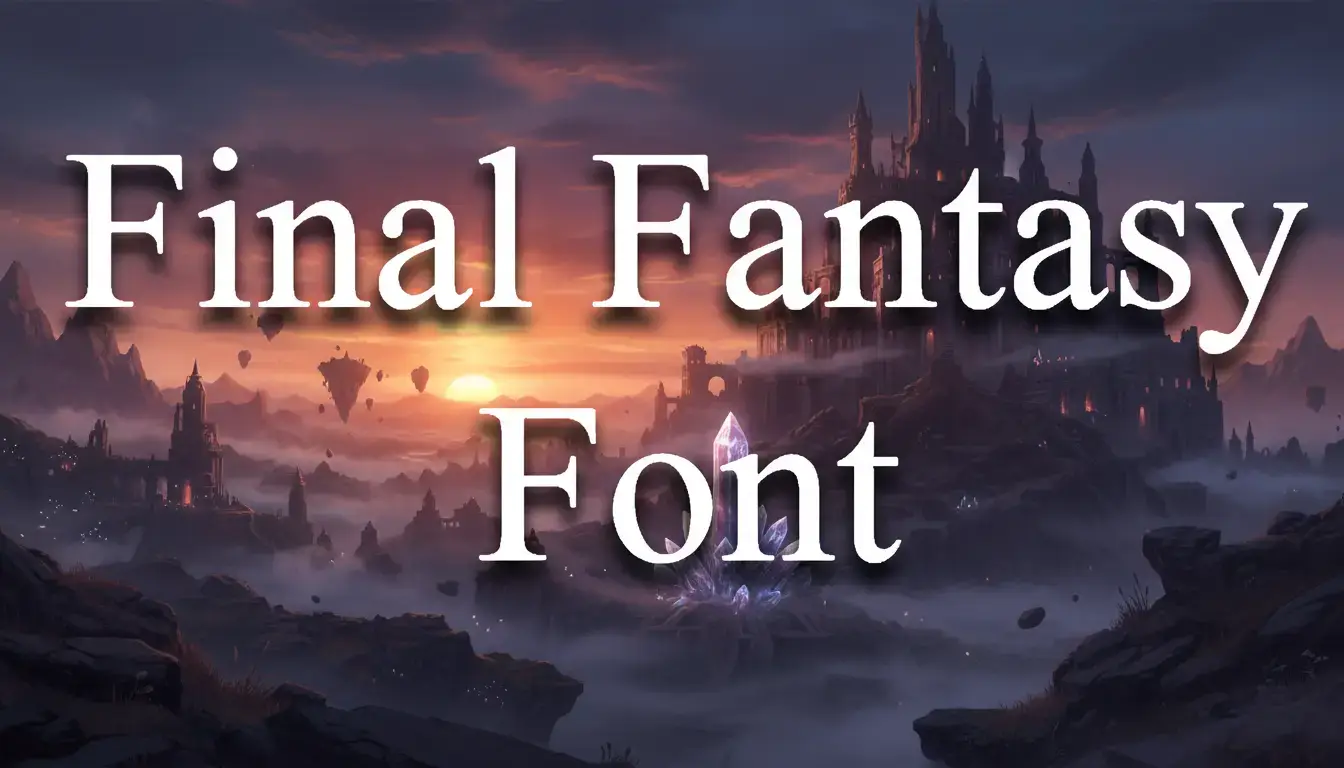
Final Fantasy Font
Final Fantasy Font Preview
Final Fantasy
Final Fantasy Character Map
aefoqrstu
Final Fantasy is a fancy font. It's a decorative display font with plenty of personality, made to grab attention. It's a free download, and you can try it with your own text in the preview above first.
- Characters: A–Z and 9 lowercase letters
What You Can Type With Final Fantasy
Final Fantasy has 26 capital and 9 lowercase letters, so a few letters may be missing. Type your exact words in the preview above to check. There are no numbers, so you'll need a second font for dates, prices or phone numbers. Punctuation is limited, so look at the character map if you need a specific symbol. There are no accented letters like é or ñ, so it's best kept to English text.
Where Final Fantasy Works Best
Final Fantasy is a natural fit for posters, logos and eye-catching headlines. Use it for one standout word or headline and let simpler fonts handle the rest.
Does Final Fantasy support accented letters?
No. Final Fantasy has no accented letters such as é, ñ or ü, so it's best for English text.